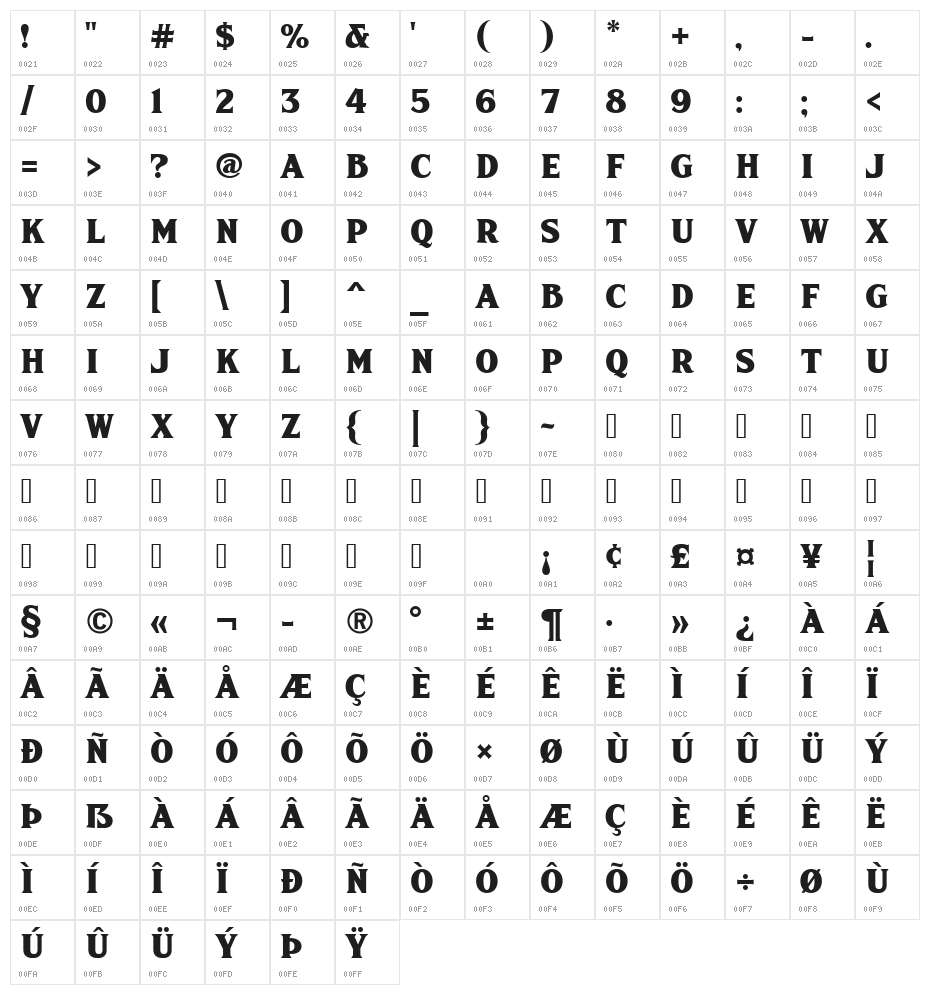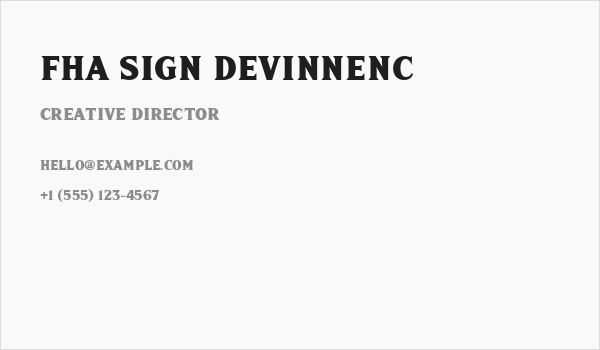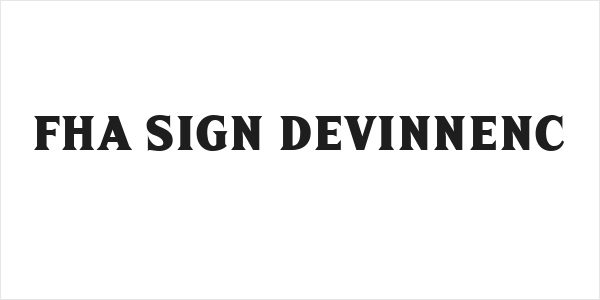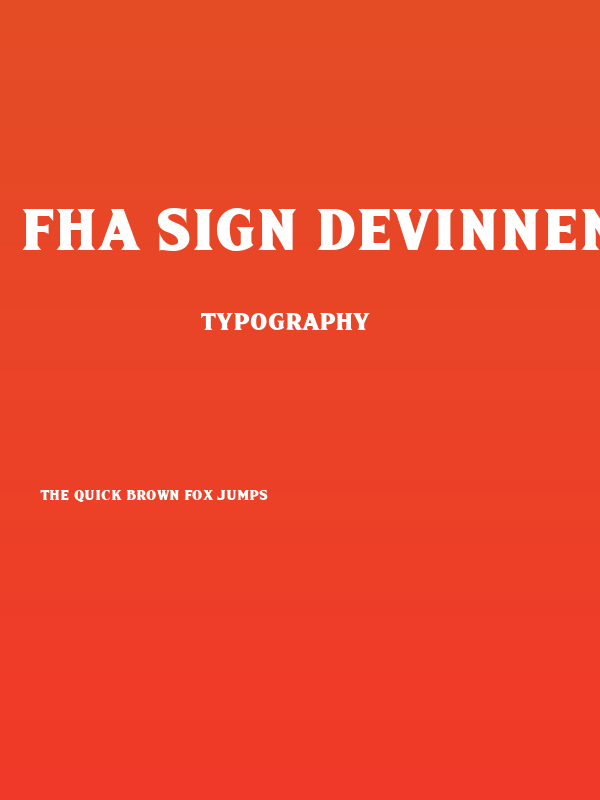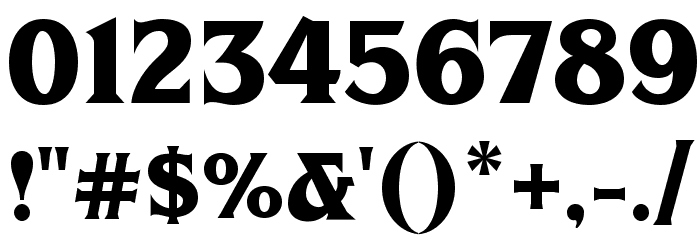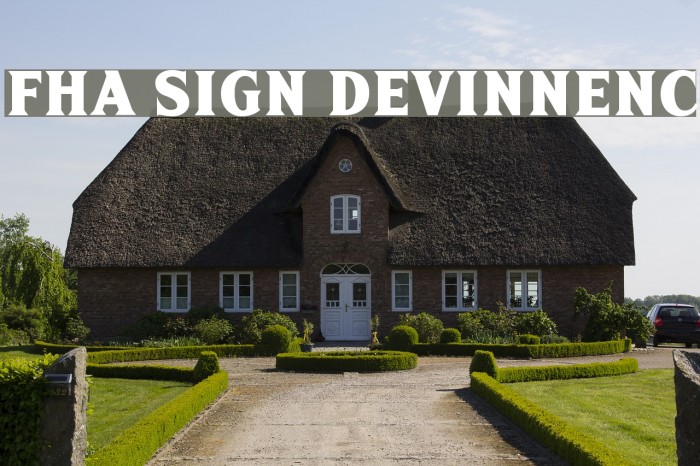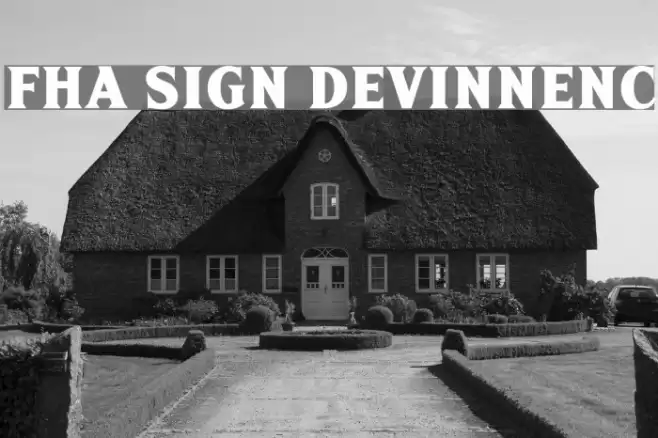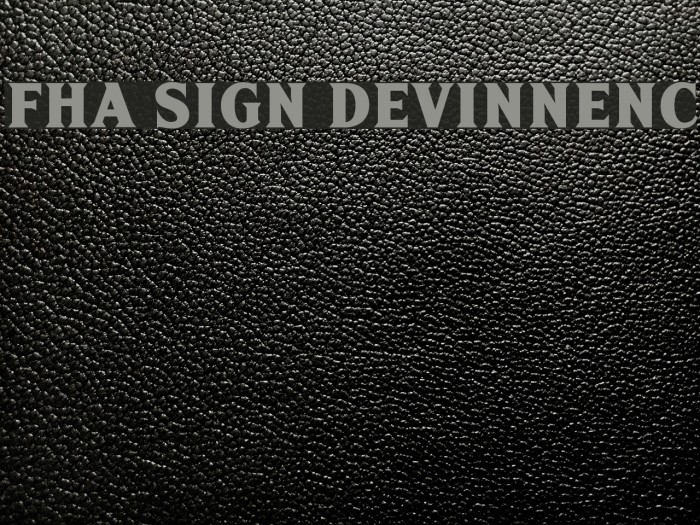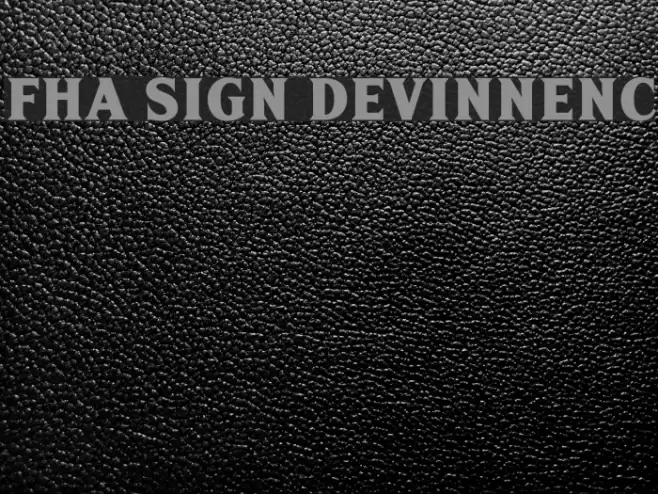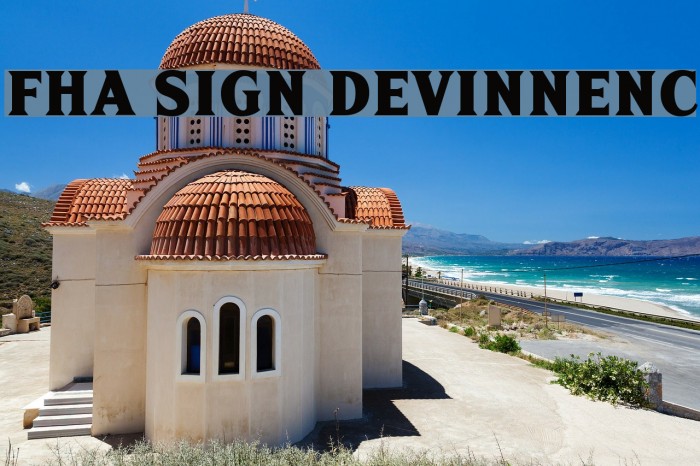
FHA Sign DeVinneNC Font
FHA Sign DeVinneNC Description
This font features a bold and commanding presence with thick, sturdy strokes and pronounced serifs. The uppercase letters are robust and convey a sense of authority, making them ideal for impactful headlines. The lowercase letters maintain the same strength, ensuring readability and consistency. Numbers are equally bold, ensuring they stand out in any context. Special characters are designed with the same attention to detail, providing a cohesive look across all elements. The overall style is classic, with a hint of vintage appeal, making it versatile for various design needs.
| Overall Style | Classic |
| Proposed Projects | Ideal for headlines, posters, branding, and any project requiring a strong, classic serif presence. |